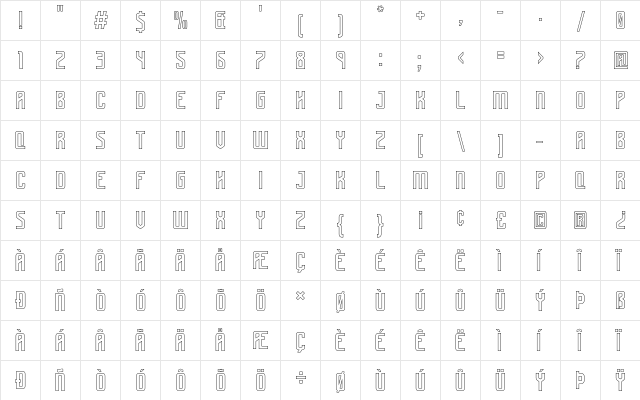
Boldness Outline Font Preview
Boldness Outline
Boldness Outline Font Details
| Style | Outline |
| Foundry | Diego Inacio |
| Designer | Diego Inacio |
Design Context for Boldness Typeface
Boldness brings ornamental detail and strong personality to headlines and identities, where visual impact matters more than quiet functionality. Its bold stroke weight gives it real presence on the page.
Font Pairing: Pair with a clean neutral sans-serif for body copy to let Boldness's character lead without overwhelming the composition.
Pro Tip: Treat Boldness as the centrepiece of your typographic hierarchy. One strong heading set in a decorative face can carry an entire layout.